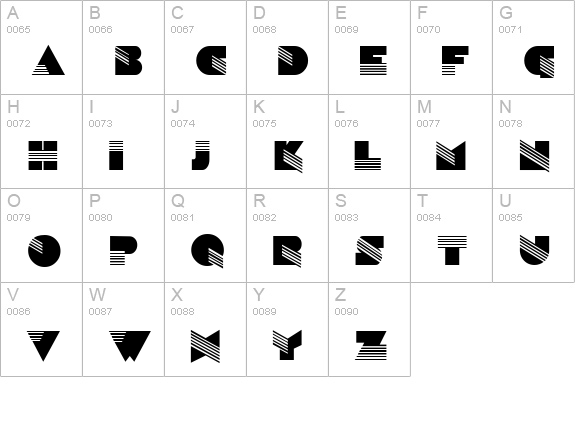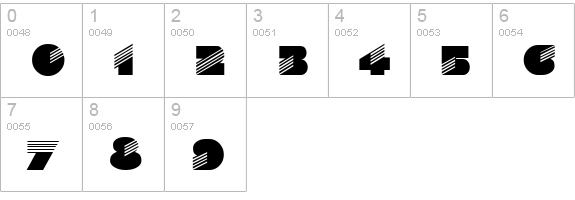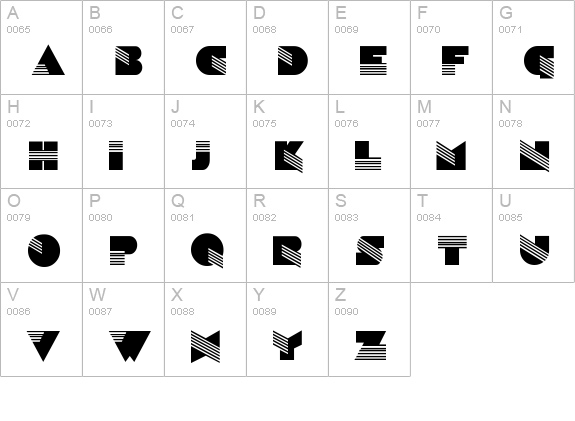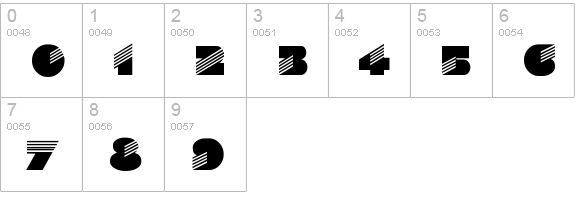
DG_Sinaloa Font Details
DG_Sinaloa is a stunning and versatile font that combines elegance with a touch of modernity. Its sleek lines and unique curves make it perfect for a wide range of design projects, from logos to branding to packaging. This font exudes sophistication and style, making it a great choice for those looking to make a statement with their typography. What sets DG_Sinaloa apart is not only its aesthetic appeal but also the fact that it is available for free download at FontsMarket.com. This means that designers and creatives can easily access this beautiful font without having to worry about any costs. With its seamless compatibility with various design software and applications, DG_Sinaloa offers endless possibilities for creativity and expression. Elevate your designs with the timeless beauty of DG_Sinaloa, now just a click away at FontsMarket.com.